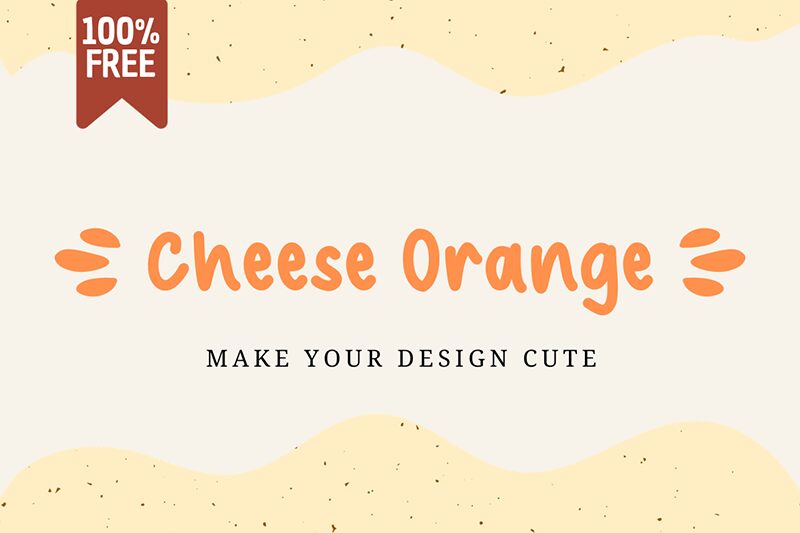
Cheese Orange
Cheese Orange font is a free handwritten font by Viola Type that mixes casual friendly design with rounded smooth curves. Every letter appears contemporary and informal, creating valuable resources to help you revamp your typography experience within seconds.